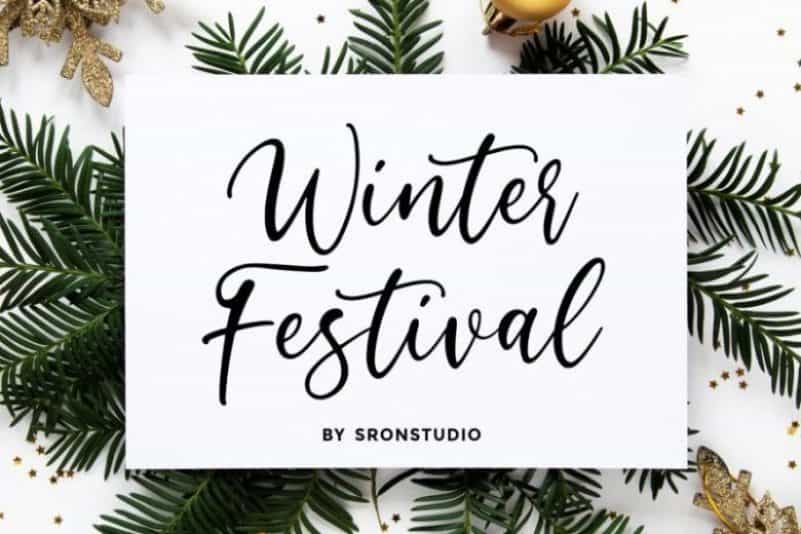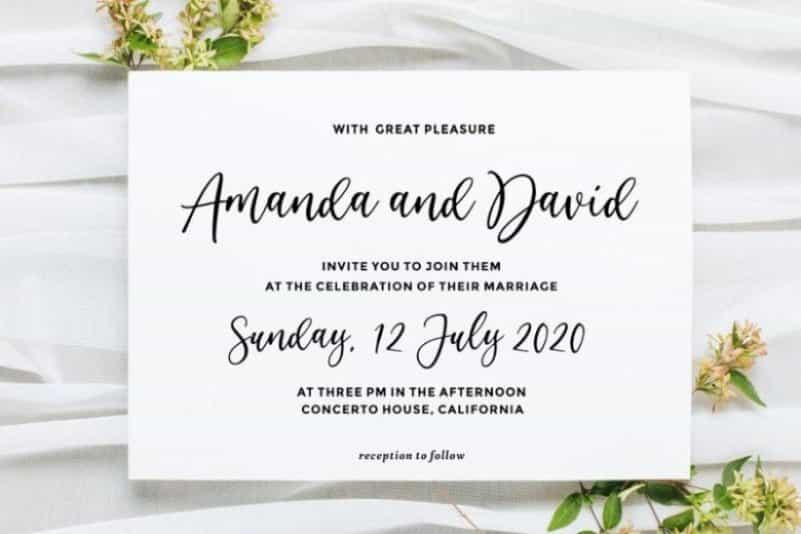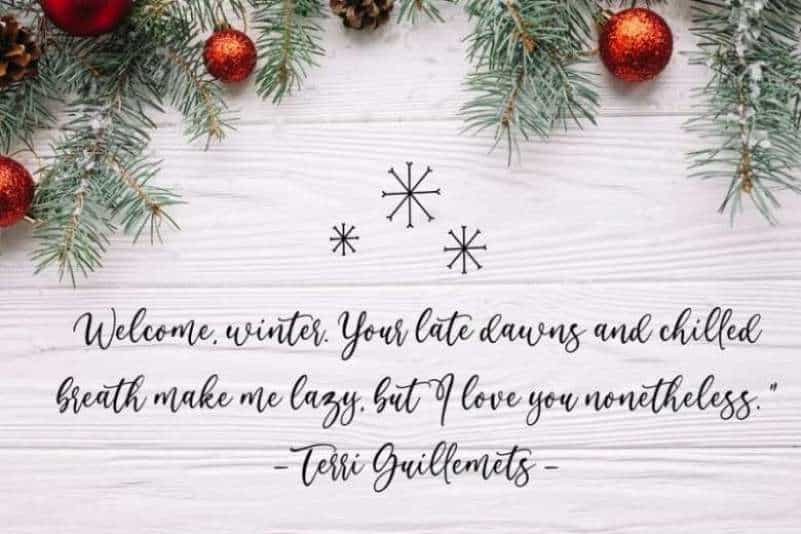
Winter Festival Font is a nice calligraphy cursive font, it looks very elegant, girly, and artisanal. It can be used on any media type, for example, flyer, wedding invitation, label, packaging, logo, book, blogging etc.